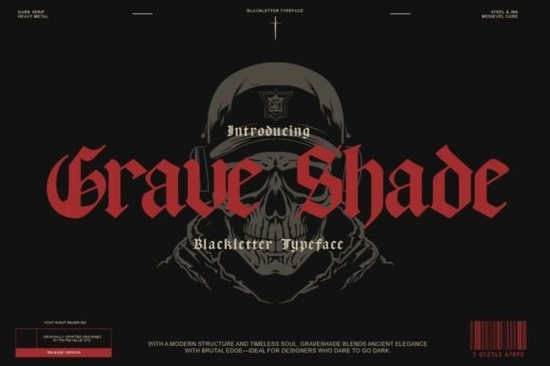
Grave Shade Font is a standout choice for anyone looking to add a dark, dramatic flair to their design projects. This bold blackletter typeface blends medieval elegance with modern gothic power, making it perfect for a variety of creative applications. Whether you're working on horror posters, metal band logos, or vintage occult merchandise, Grave Shade delivers the intensity and timeless feel that designers crave.
The font’s razor-sharp serifs and commanding presence make it ideal for creating a strong visual impact. Each character is carefully crafted to evoke the ancient art of calligraphy while maintaining a clean, contemporary look. This balance between tradition and modernity ensures that Grave Shade remains versatile across different design styles and mediums.
What Makes Grave Shade Unique?
Grave Shade stands out due to its distinctive combination of heavy metal aesthetics and dark serif traditions. The font’s design draws inspiration from the boldness of gothic typography, offering a look that feels both powerful and refined. Its structure allows for clear legibility even at smaller sizes, which is essential for everything from small text in tattoos to large-scale posters.
Designers who want to convey a sense of mystery, strength, or rebellion often turn to Grave Shade. Its versatility makes it suitable for branding, editorial design, and even personal projects like handmade greeting cards or custom t-shirts. The font’s ability to adapt to different contexts without losing its signature style is one of its greatest strengths.
Best Uses for Grave Shade Font
Grave Shade Font works exceptionally well in projects that require a strong visual identity. For example, horror movie posters can benefit from its intense, dramatic look. Metal band logos often use this font to create an immediate sense of edginess and authenticity. Tattoo artists also appreciate its sharp details and bold appearance, which translate well into permanent ink designs.
In addition to these uses, Grave Shade is great for gothic branding, especially for businesses that want to communicate a sense of darkness, mystery, or rebellion. It’s also a popular choice for vintage occult merchandise, where the font’s historical undertones add an extra layer of meaning. Whether you’re designing for a small business or a personal project, Grave Shade offers a powerful visual tool.
How to Use Grave Shade Effectively
To get the most out of Grave Shade, consider pairing it with complementary fonts that balance its intensity. For instance, using a simpler sans-serif font for body text can help prevent the design from becoming too overwhelming. Experimenting with color choices is also important dark hues like black, deep reds, or metallic tones can enhance the font’s dramatic effect.
When working with Grave Shade, keep the overall layout clean and focused. Avoid overcrowding the design with too many elements, as the font itself is already very bold. Instead, let the typography take center stage. This approach not only highlights the font’s strengths but also ensures that the message or brand it represents is clear and impactful.
For those new to using blackletter fonts, Grave Shade provides a great starting point. Its clear structure and strong visual presence make it accessible for both beginners and experienced designers. As you become more familiar with its characteristics, you’ll likely find new ways to incorporate it into your work.
Whether you're designing for a specific niche or looking to expand your creative toolkit, Grave Shade Font is a valuable resource. Its unique blend of historical inspiration and modern design makes it a reliable choice for a wide range of projects.
Before finalizing your design, take time to test Grave Shade in different contexts. Seeing how it looks in various sizes, colors, and layouts will help you make informed decisions. This process ensures that the font enhances your work rather than detracts from it.
Remember, the goal is to use Grave Shade in a way that aligns with your creative vision. By understanding its strengths and limitations, you can make the most of this powerful typeface.
As you continue to explore the possibilities of Grave Shade, keep an eye out for other fonts that might complement it. Expanding your font library can open up new creative opportunities and help you develop a more distinct design style.
With its bold, dramatic presence, Grave Shade Font is a valuable addition to any designer’s collection. Whether you're working on a professional project or a personal passion, this font offers the visual impact you need to make your work stand out.
Take a moment to review your current design projects and think about how Grave Shade could enhance them. You may find that it brings a fresh perspective and a stronger visual identity to your work.